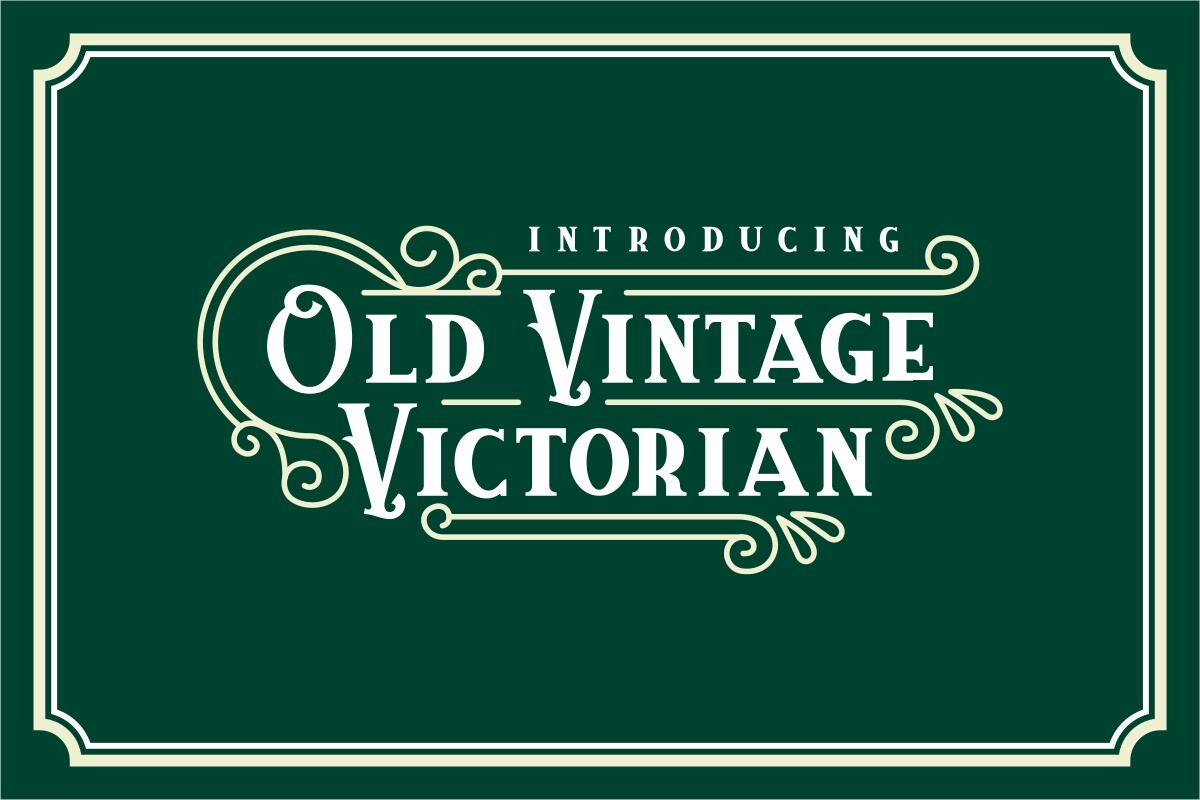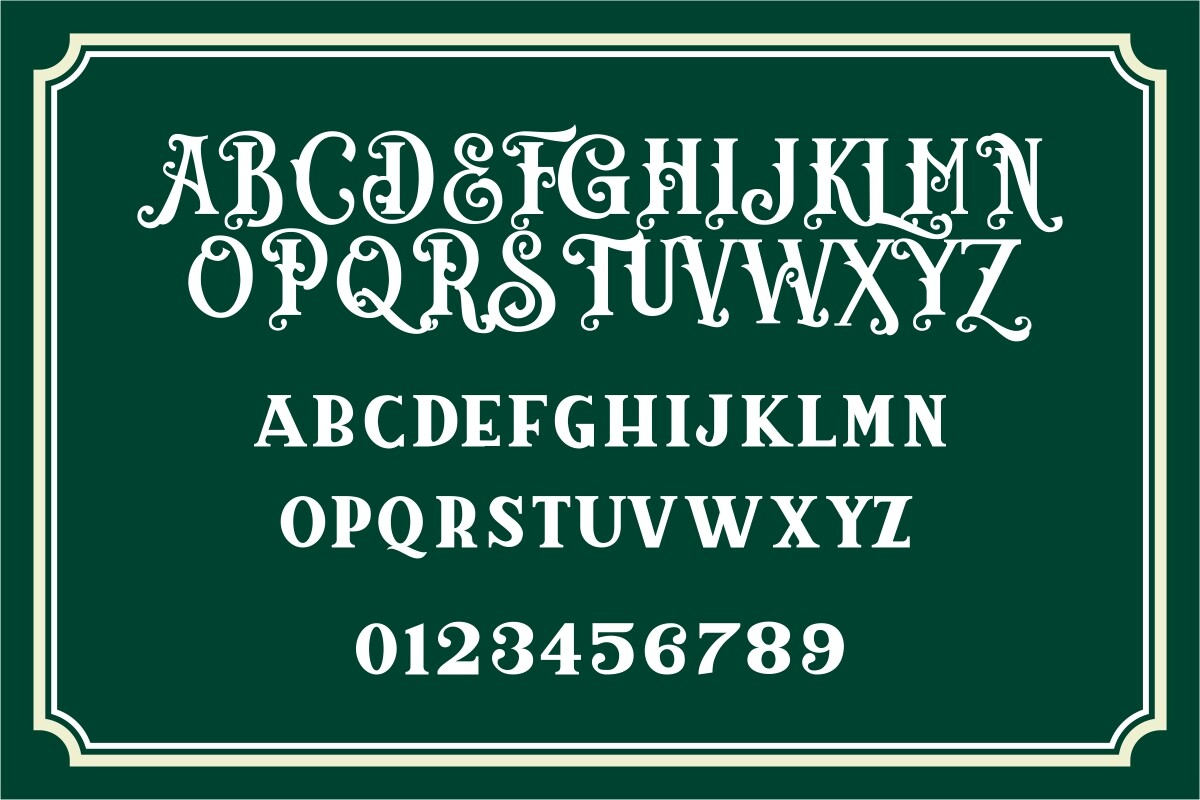
Old Vintage Victorian Font
About Old Vintage Victorian Font
Old Vintage Victorian is a charming Victorian-style font that effortlessly transports you to the elegance of a bygone era. With intricate details and a touch of vintage flair, this font captures the essence of Victorian design, making it the perfect choice for projects that seek to evoke a sense of classical sophistication. Let Old Vintage Victorian lend an air of timeless grace to your typography, whether you’re crafting invitations, signage, or any project that calls for a dash of historic charm.